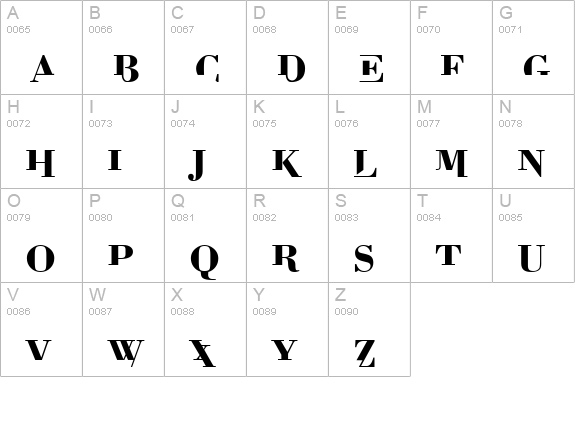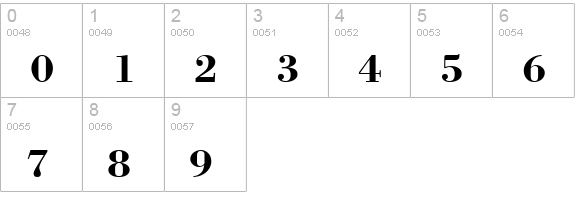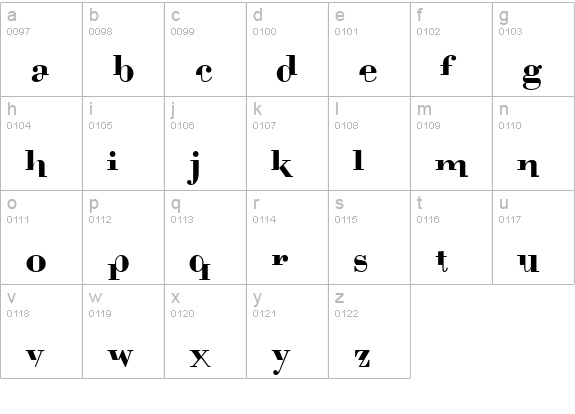
BodoniMutant Font Details
BodoniMutant font is a unique and innovative typeface that pushes the boundaries of traditional typography. This font combines the classic elegance of Bodoni with a modern twist, resulting in a bold and eye-catching design that is sure to make a statement. The sleek lines and exaggerated features of BodoniMutant give it a futuristic and edgy look, perfect for projects that require a touch of avant-garde flair. What sets BodoniMutant font apart is its striking visual impact and versatility. Whether used for headlines, branding, or editorial design, this font commands attention and adds a dynamic touch to any project. Its distinctive aesthetic makes it a standout choice for designers looking to push the boundaries of traditional typography and create something truly unique. Best of all, BodoniMutant font is free to download at FontsMarket.com, making it accessible to designers of all levels. With its bold design and modern appeal, BodoniMutant is sure to become a favorite in your font collection, adding a touch of creativity and innovation to your designs.